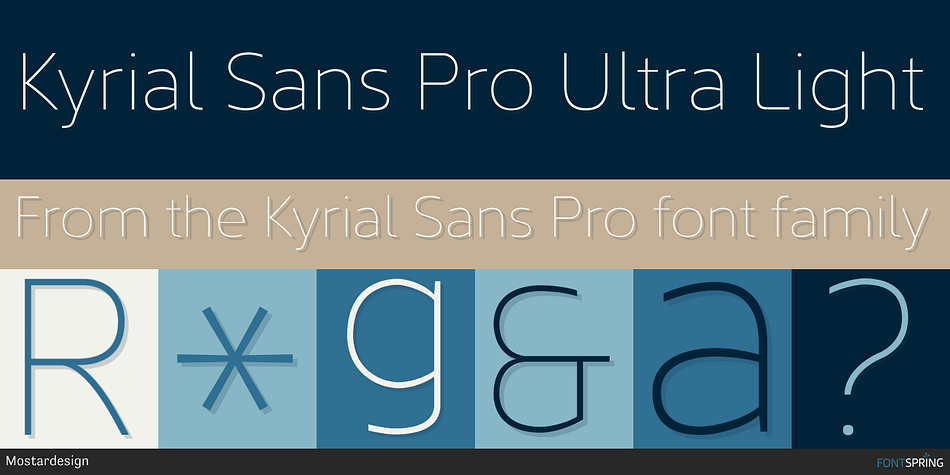
Kyrial Sans Pro Ultra Light
Kyrial Sans Pro is a sans serif font family. This typeface has twenty-four styles and was published by Mostardesign.
Designed by Olivier Gourvat, this font family has generous proportions with a range of weights make it a versatile family for print, text, signage,branding and web design work.
Designed by Olivier Gourvat, this font family has generous proportions with a range of weights make it a versatile family for print, text, signage,branding and web design work. Kyrial Sans Pro offers lots of OpenType goodness and broad language support.